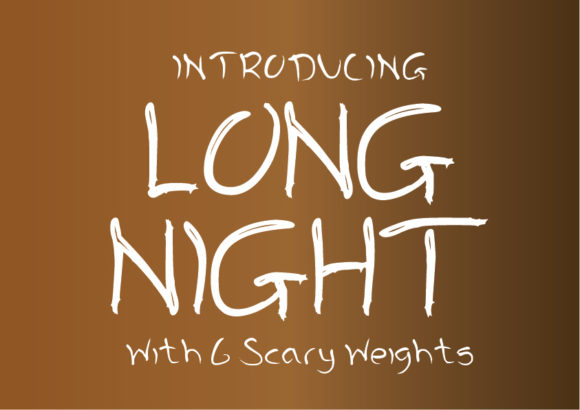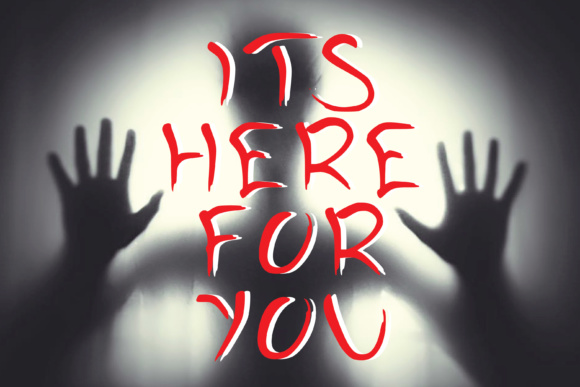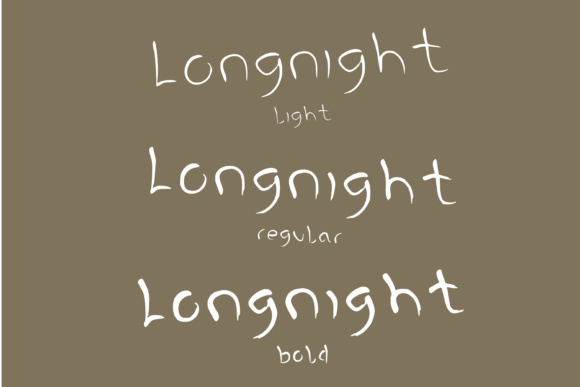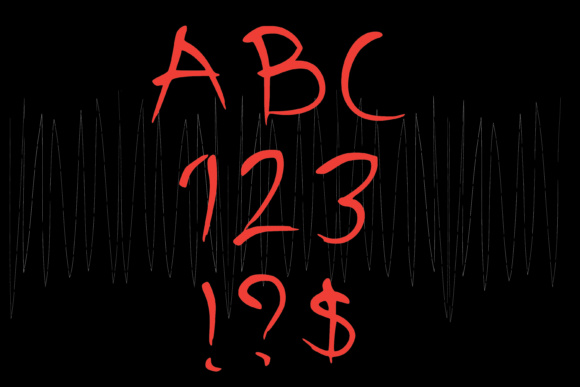
Long Night Font
About Long Night Font
Sinister, long drawn out shadows, creeping figures walking in the moon light night… the horror film genre has influenced this typeface and we hope it gives you and your designs a chill up the spine.